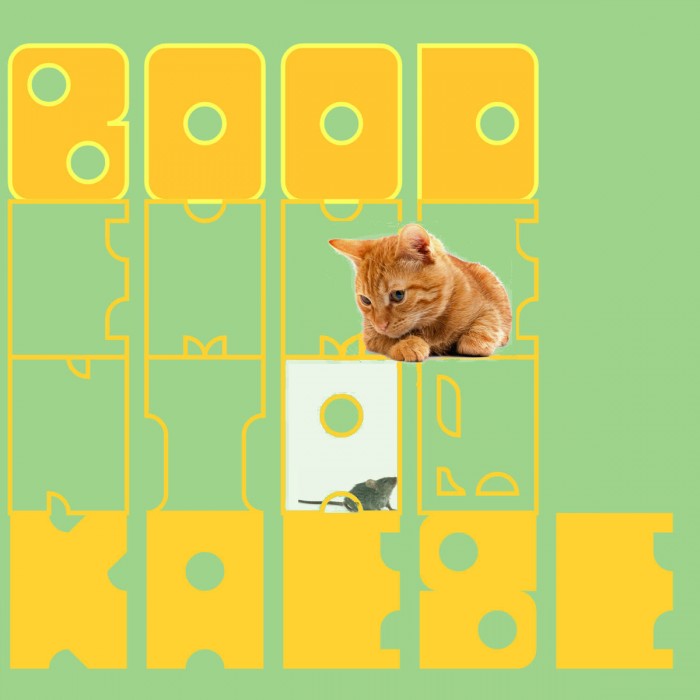
L is kind of weird...
lol @ xBox, so is that cheese ;) :D
I have have a font also inspired by FORE, Sliced Mango
New L + new T = more precision
I can feel it's smell, as on a fresh piece of pizza, with slices of tomato and roasted onions…
Any sample in ~ yellow (with a mouse), to make us salivate even more over it's realistic shapes?
dpla, I don't know about realistic shapes, but I think the holes have a suggestion of structural authenticity ;)
Aeolien's "Emmental" looks like elmoyenique's older "zpanish caravan eYe/FS".